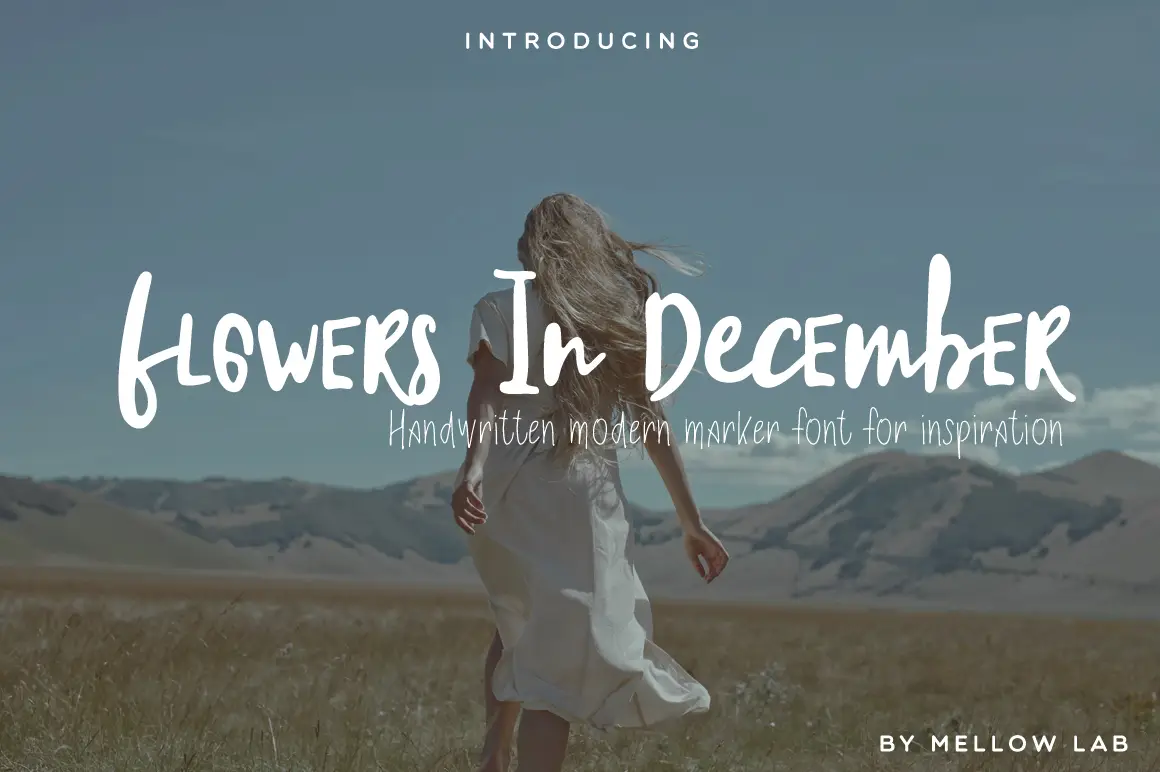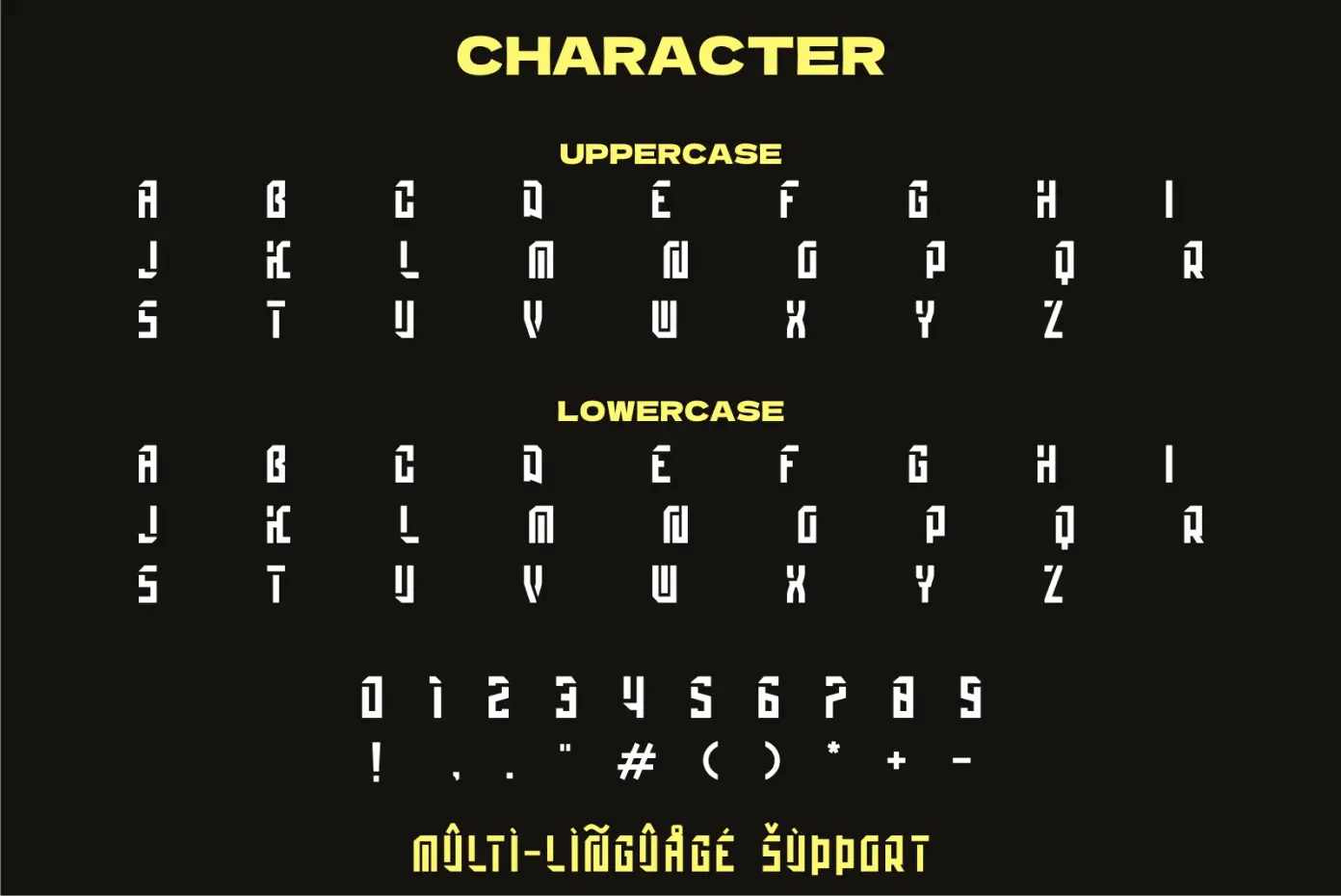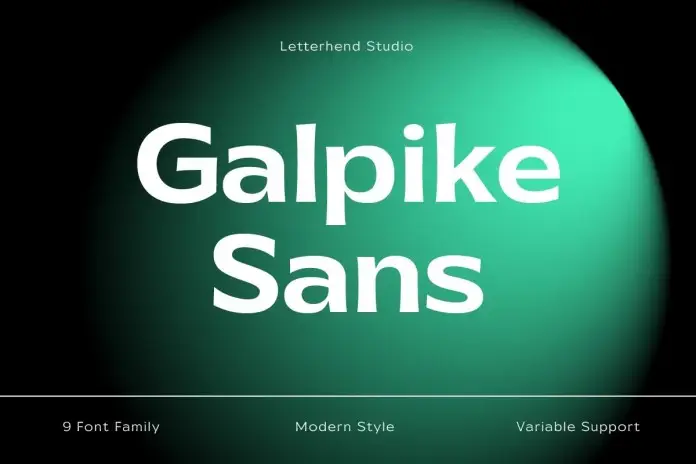
Top 20 brushespack Collection Part 78 Picks
Farte Display Font
Make a statement that nobody will forget! 🚀 Farte Display Font is a bold, expressive typeface perfect for branding and eye-catching headlines that demand attention.
Filago
Versatile, modern, and oh-so-customizable! 🎨 Filago is the digital design asset that seamlessly fits into any project, giving you crisp, high-resolution visuals right out of the box.
Caniago Serif Font
Elegance meets readability in the Caniago Serif Font. 🖋️ This classic, multi-weight typeface adds a touch of timeless sophistication to any text, from branding to print.
Gawal Display Font
Bold, unique, and absolutely striking! 💥 Gawal Display Font is your go-to for logos and headlines that need to stand tall and make a powerful impression.
Dancinglove Script Font
Feel the love with every curve! 💖 Dancinglove Script Font is a modern, flowing script that brings elegance and charm to invitations, logos, and personal projects.
Galpike Sans Serif Font
Clean, contemporary, and incredibly versatile! ✨ Galpike Sans Serif is perfect for everything from sleek websites to crisp print materials. Simple, but far from boring.
Gooler Display Font
Get ready to turn heads! 🔥 Gooler Display Font brings a modern, punchy aesthetic that makes your branding and logos pop with personality and style.
Cattelyna-Classy Calligraphy Font
Luxury has a new name—Cattelyna! 💎 This classy calligraphy font is dripping with sophistication, perfect for high-end branding, wedding invites, and elegant typography.
Classique Saigon Typeface
Parisian chic meets modern design! 🥐 Classique Saigon Typeface captures an essence of timeless elegance that works beautifully across web, print, and logos.
Bulletto Killa Font
Edgy, bold, and a little bit vintage! 🔥 Bulletto Killa Font is the perfect mix of retro and modern, making your promotional materials and logos absolutely killer.
Estate Font
Sophisticated, stylish, and incredibly refined. 🏡 The Estate Font brings a unique serif elegance to any branding project, perfect for creating a premium feel.
Energetica Handwritten Font
Inject some lively, personal energy into your designs! ⚡ Energetica Handwritten Font gives your branding a unique, human touch that feels authentic and warm.
Futuresta Display Font
The future of typography is here! 🤖 Futuresta Display Font features sharp, geometric shapes and clean lines that are perfect for tech brands and modern headlines.
Dirty Lines Script
Grungy, stylish, and full of character! 🖌️ Dirty Lines Script gives your projects a cool, handwritten edge with awesome ligatures that add a casual elegance.
Earhtroline Script Font
Elegant, flowing, and packed with personality! 🌿 Earhtroline Script Font adds a beautiful, organic touch to your designs, perfect for logos and social media graphics.
Flowers In December
Winter wonders are here! ❄️🌸 Flowers In December is a stunning collection of high-resolution floral designs that bring natural beauty and elegance to any project.
Calligraphy Script Font
Pure elegance in every stroke! 🖋️ This Calligraphy Script Font is sophisticated, artistic, and perfect for adding a refined touch to your invitations or branding.
Dominica Calligraphy Font
Flowing and artistic with a touch of luxury! ✨ Dominica Calligraphy Font is incredibly versatile and brings an air of sophistication to any design project.
Campas Display Font
Distinctive, bold, and full of personality! 🚀 Campas Display Font is perfect for headlines and logos that need a serious dose of character and modern flair.
Explora Serif Font
A perfect blend of modern and classic! 🌟 Explora Serif Font features elegant serifs and clean lines, making it ideal for sophisticated branding, web design, and print.